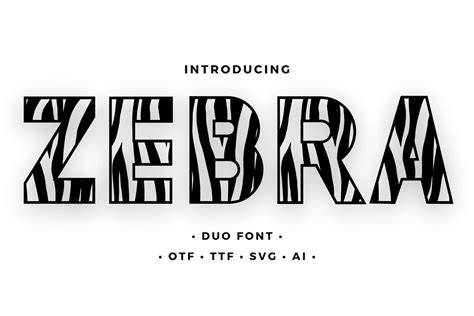
The Different Types Of Zebra Fonts For 2023
Zebra fonts are an exciting and unique style of fonts that have been gaining in popularity over the past few years. As more people become aware of this style of font and the interesting designs that come with it, they are increasingly being used as a way to stand out from the crowd. This year, there are a variety of different types of zebra fonts that people are sure to love.
Simple Black and White Zebra Fonts
One of the most recognizable types of zebra fonts are the simple black and white designs. These fonts are designed with a black-and-white striped pattern, which creates a distinct and visually interesting style. This type of font is commonly used for logos, titles, and even as part of a larger design. For those looking for a bold font that stands out, this is a great option.
Colored Zebra Fonts
Another type of zebra font that is becoming increasingly popular is the colored zebra font. This type of font uses bold colors to create a more eye-catching design. This can be a great option for those looking for a font that stands out from the rest. These fonts can be used for a variety of projects, including logos, titles, and other forms of design.
Abstract Zebra Fonts
Abstract zebra fonts are another type of font that is becoming increasingly popular. This type of font uses abstract shapes and patterns to create a unique and interesting design. This type of font can be used to create a more modern look and feel to any project. Whether you are looking to create a logo, title, or other type of design, this type of font can be a great choice.
Decorative Zebra Fonts
Decorative zebra fonts are a great way to add some decorative flair to any project. This type of font incorporates a variety of different designs and patterns into its design. This can be a great way to make your design stand out from the rest. Whether you are looking for a bold logo or a subtle title design, this type of font can be a great choice.
Finding the Right Zebra Font
When looking for the perfect zebra font for your project, there are a few things to consider. First, you will want to consider the style and type of font that you are looking for. Different fonts have different levels of complexity and detail, so it is important to find the right font for your project. Additionally, you will want to consider the colors that you want to use in your design. Different colors will create different effects, so it is important to find the right colors to create the desired effect.
Overall, zebra fonts are an exciting and unique style of font that can be used to create a variety of different designs. This year, there are a variety of different types of zebra fonts that can be used to create unique and interesting designs. Whether you are looking for a bold logo or a more subtle title design, zebra fonts can be a great option for any project.